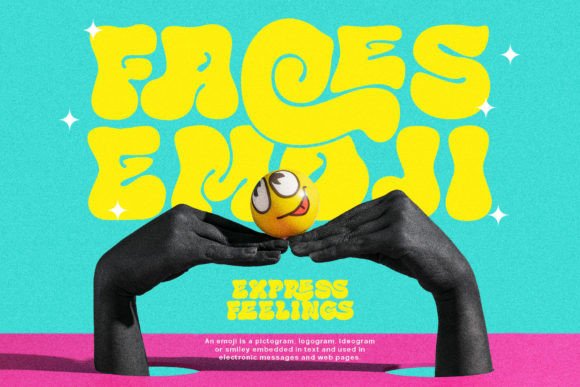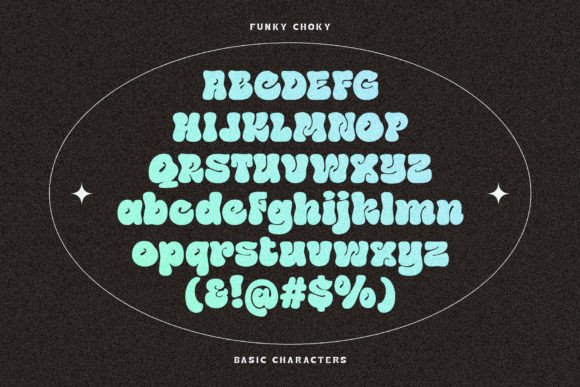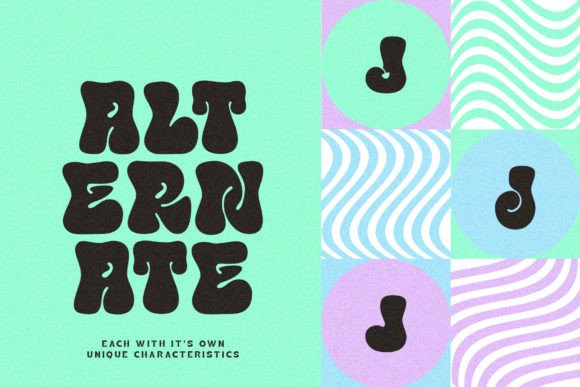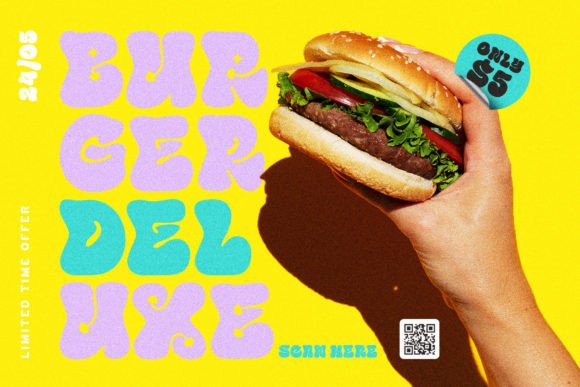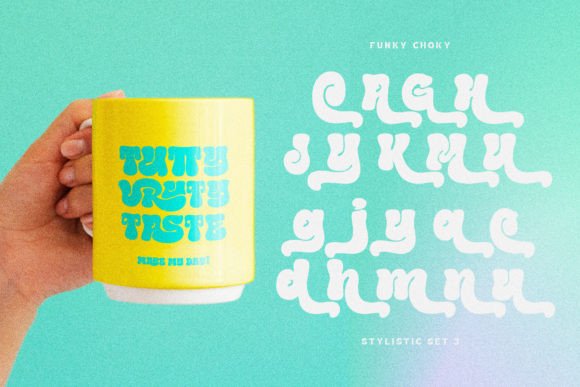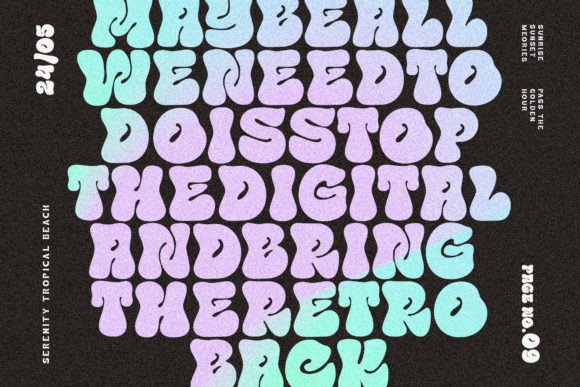
Introduction to Funky Choky Font
Funky Choky is a captivating font that combines the essence of bubble dynamics with a modern and funky style.
Its unique design exudes energy and playfulness, making it perfect for projects that require a fresh and vibrant look .
Key Features of Funky Choky Font
Why Choose Funky Choky Font?